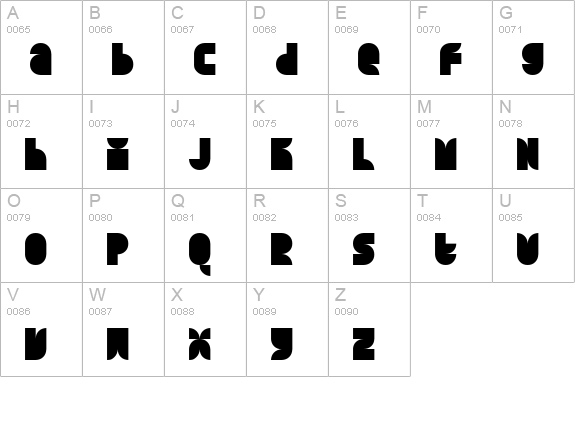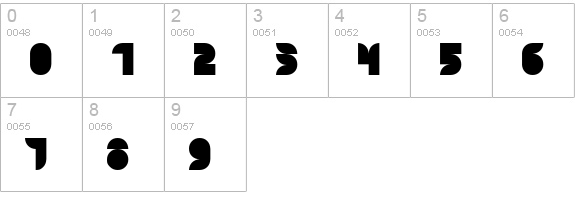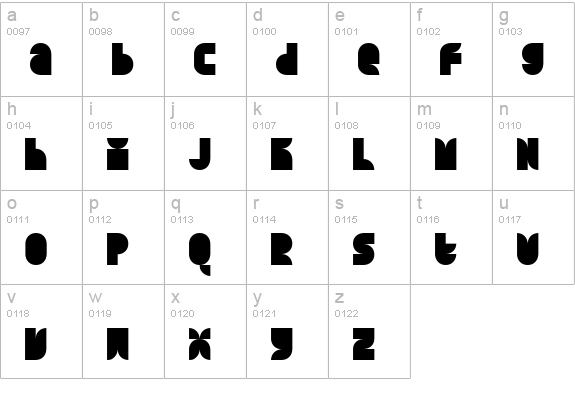
Quarterround Solid Font Details
Quarterround Solid is a modern and versatile font that effortlessly combines elegance with a touch of playfulness. With its rounded corners and bold letterforms, this typeface exudes a sense of warmth and approachability, making it perfect for a wide range of design projects. The solid and sturdy appearance of Quarterround Solid lends itself well to headlines, logos, and branding materials. Its clean and legible design ensures that your message is easily conveyed, while its unique character adds a distinct visual appeal. This font offers a wide range of glyphs and ligatures, allowing you to create captivating and eye-catching layouts. Whether you're designing a poster, a website, or a packaging design, Quarterround Solid has the versatility to adapt to any project. And the best part? Quarterround Solid is available for free download at FontsMarket.com. This means that you can easily access this stunning font and use it in your personal or commercial projects without any cost. It's a fantastic opportunity to enhance your designs with a high-quality font that won't break the bank. So why wait? Download Quarterround Solid today and explore the endless possibilities it offers. Whether you're a professional designer or a hobbyist, this font will elevate your work to new heights. Don't miss out on this chance to add a touch of modern elegance to your projects, all for free.